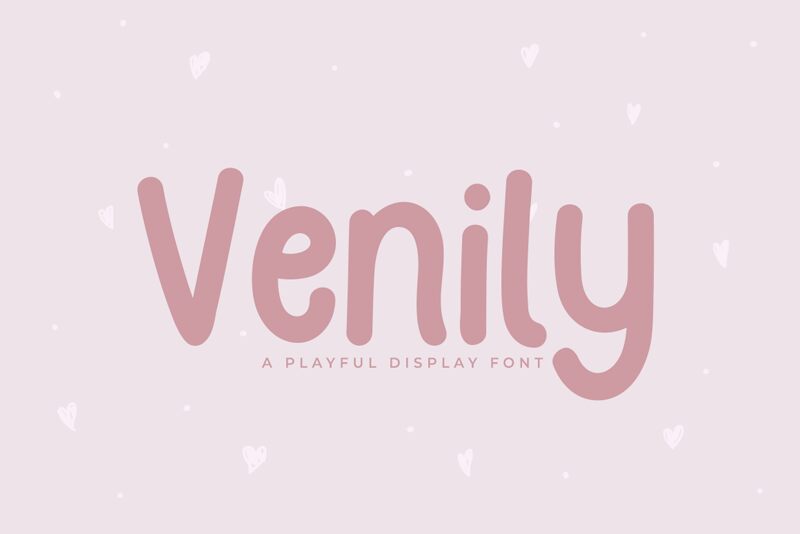
Venily
Venily, a captivating font designed by Suzuran San, exudes a delightful, whimsical charm. Its playful, cartoon-inspired strokes lend a sense of lightheartedness and youthful energy to any design. The font's bold, expressive forms and smooth curves create a visually striking presence, making it an excellent choice for attention-grabbing headlines, playful branding, or eye-catching product packaging.
This versatile font can elevate a variety of design projects, from children's storybooks and educational materials to vibrant social media graphics and lively event invitations. Its playful aesthetic seamlessly complements illustrations, icons, and other design elements, making it a versatile choice for crafting engaging, memorable visual experiences.